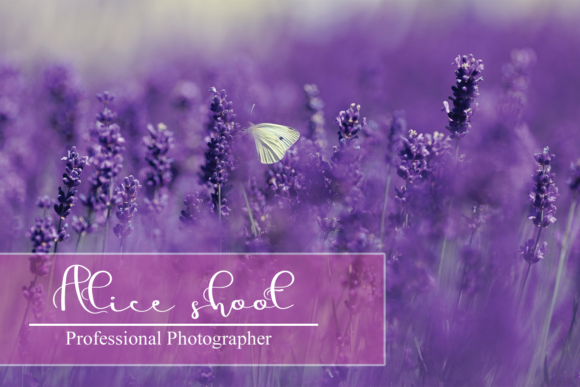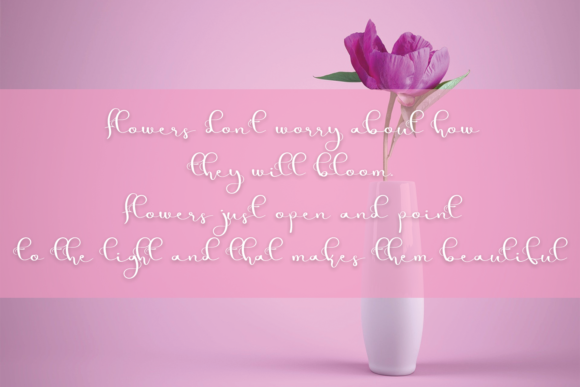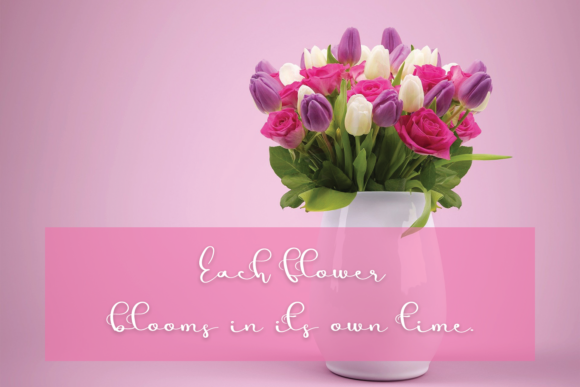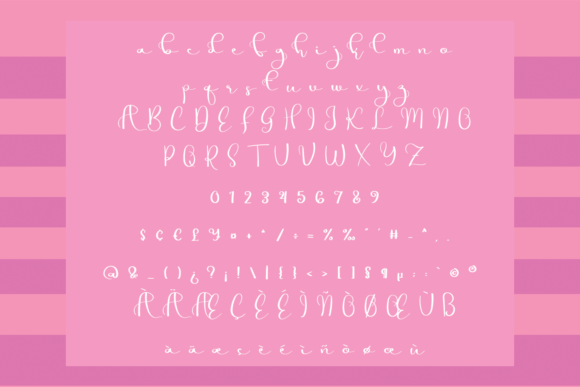
Introduction to Simple Fits Font
Have you ever stared at a blank page, your mind racing with ideas but your creativity stuck? This is where the perfect design resource comes in – the Simple Fits Font. Its elegant, thin letters and flowing script make it the perfect choice for any creative project, from beautiful wedding invitations to stunning social media posts.
As a designer, you’re always on the lookout for high-quality fonts that can elevate your work. The Simple Fits Font is a game-changer, offering a free download that’s perfect for adding a touch of sophistication to your designs. Whether you’re working on a personal project or a client’s brief, this versatile font is sure to impress.
One of the standout features of the Simple Fits Font is its transparent background, making it easy to customize and layer with other design elements. With its delicate, cursive style, this font is a must-have for any designer looking to add a touch of whimsy and romance to their work.
Key Features of Simple Fits Font
- High-quality design resource suitable for various creative projects
- Features a transparent background, allowing for easy customization and flexibility
- Designed with a clean and minimalist aesthetic, making it perfect for modern design projects
Honest Review: Simple Fits Font
As a designer, I’m always on the lookout for high-quality design resources that can elevate my creative projects. I recently came across the Simple Fits Font, and I must say it’s been a game-changer for me.
- ✨ Simple and elegant design: The font is incredibly easy to read and looks great in both print and digital formats.
- ✨ Transparent background: The font has a transparent background, making it easy to overlay on images and other design elements.
- ⚠️ Limited font sizes: The font only comes in a limited range of sizes, which can make it difficult to use in certain design scenarios.
- ⚠️ Not ideal for bold typography: While the font looks great in small to medium-sized text, it may not be the best choice for bold or large typography.
Overall, I’m really impressed with the Simple Fits Font. It’s a great addition to any designer’s toolkit, and its free download makes it a must-have resource. While it may have some limitations, I think it’s a great choice for most creative projects.
Tips for Getting the Most Out of Simple Fits Font
Experiment with different font sizes and styles to create a unique and high-quality design. Use the font in combination with other design elements to add depth and interest to your design. Consider using the font for headings and titles to create a clear and concise design.
The Simple Fits Font is a versatile font that can be used for a variety of creative projects, including graphic design, digital marketing, and print design. It’s a great resource for designers who want to create high-quality designs with a simple and elegant aesthetic.